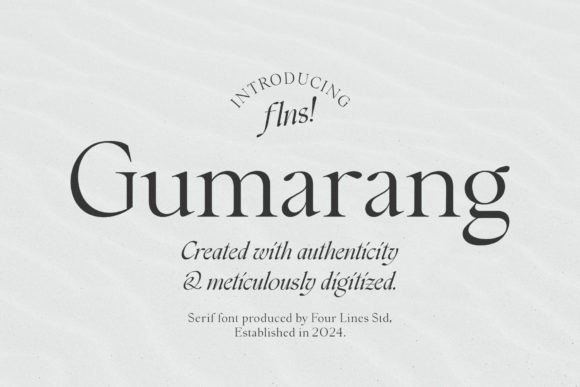
Gumarang: The Font That Elevates Your Campaigns
It was a typical morning in the marketing department. I was finalizing the visuals for a new product launch, scrolling through thumbnails and checking mobile previews on my phone. The campaign needed to feel refined, elegant, and trustworthy—something that would resonate with our target audience and stand out in a crowded feed.
I had spent hours brainstorming color schemes, layout ideas, and content strategies, but one element kept slipping through the cracks: the font. It wasn’t just about aesthetics—it was about clarity, hierarchy, and emotional impact. That’s when I thought of Gumarang.
The Serif That Speaks Volumes
Gumarang is more than just a font; it’s a visual language. With its slender, elegant strokes and refined serif style, it exudes sophistication and timeless appeal. The Regular style offers a clean, modern look perfect for headlines and body text, while the Italic variant adds a touch of calligraphic flair, ideal for quotes or decorative titles.
What sets Gumarang apart is its versatility. Whether you’re designing social media graphics, YouTube thumbnails, or email banners, this font adapts seamlessly to your needs. Its subtle curves and balanced proportions make it incredibly readable, even at small sizes. This is crucial for campaigns where quick scanning is key, like Instagram posts or digital ads.
A Real Campaign Moment: Launching a Seasonal Sale
For our upcoming seasonal sale, we needed a font that could convey both excitement and elegance. Gumarang fit the bill perfectly. I used the Regular style for the main headline, “Summer Sale Starts Today,” and the Italic variant for the tagline, “Limited Time Offer.” The combination created a sense of urgency without sacrificing style.
The font’s readability on mobile screens was a huge plus. As I tested the design on my phone, I noticed how the clean lines and open spacing made the text easy to read, even in fast-scrolling feeds. This attention to detail ensured that our message wouldn’t get lost in the noise.
Where Gumarang Shines
Gumarang is an excellent choice for a wide range of campaign assets:
- Social Media Graphics: Perfect for Instagram posts, Twitter updates, and Facebook promotions.
- Pinterest Pins: Adds a touch of sophistication to editorial-style content.
- YouTube Thumbnails: Draws the eye with its elegant structure and visual hierarchy.
- Digital Ads: Works well in banner ads and display units, especially on dark backgrounds.
- Email Banners: Enhances brand recognition and improves click-through rates.
- Branded Templates: Ideal for creating consistent, professional-looking designs across all platforms.
Its ability to work with both light and dark backgrounds makes it a versatile tool in any designer’s toolkit. I’ve also used Gumarang for webinar banners and course launches, where its refined appearance helps establish credibility and authority.
Font Pairing: A Strategic Approach
To maintain balance and visual interest, I often pair Gumarang with a clean sans serif font. For example, using a modern sans serif like Montserrat for body text complements Gumarang’s elegance without overwhelming the design.
When working on a branded content series, I recommend experimenting with different styles and weights to create variety. Gumarang’s ligatures and alternates add depth and personality, making each design feel unique yet cohesive.
Readability Matters
In digital campaigns, readability is everything. Gumarang excels in small text scenarios, such as thumbnails and image overlays. However, it’s important to test the font across different screen sizes and resolutions to ensure it performs consistently.
For dark backgrounds, I suggest using lighter text colors to maintain contrast. On light backgrounds, darker shades work best. Additionally, avoiding overly complex layouts can help preserve the font’s legibility, especially in fast-moving feeds.
Designing with Purpose
As a marketer, I’ve learned that every design decision should serve a purpose. Gumarang isn’t just a pretty font—it’s a strategic asset that enhances message clarity, strengthens brand identity, and boosts audience engagement.
Whether you’re crafting a product teaser, a quote graphic, or a promotional banner, Gumarang brings a level of sophistication that aligns with modern design trends. Its ability to adapt to various contexts makes it an invaluable tool for any creative workflow.
So next time you’re preparing a campaign, consider Gumarang. It might just be the font that turns a good design into a great one.